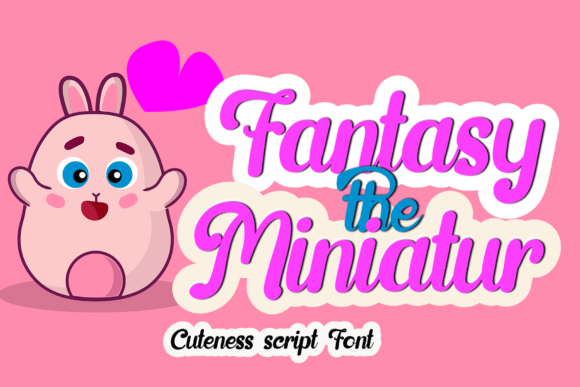
Fantasy the Miniatur: A Designer's Honest Review
When I first opened Fantasy the Miniatur, I was curious how a script typeface with that name would land in real layouts. The name suggests something delicate, miniature, almost whimsical. But the letters themselves carry more weight than you might expect. This is not a shrinking violet of a font. It has confidence, a deliberate hand-drawn quality that sits somewhere between vintage elegance and playful modernism. As a designer who spends most days evaluating typefaces for branding, packaging, and digital products, I look for fonts that bring personality without demanding constant attention. Fantasy the Miniatur does that, but only when you place it in the right context.
A Script That Refuses to Fade Into the Background
The first thing I notice with any script font is how the letters connect and whether the rhythm feels natural. Fantasy the Miniatur flows well. The strokes have variation—thin in some places, bold in others—which gives it a handcrafted feel. It is not a rigid, clinical script. It breathes. The lowercase runs smoothly, and the uppercase stands out without shouting. The overall mood is warm, slightly nostalgic, but still contemporary enough for modern brand identity work. I can see it appealing to crafters and small business owners who want a friendly, approachable look without slipping into the overly cutesy territory that many handwritten fonts occupy.
This is a display font first. I would not recommend it for long body copy or anything that requires sustained reading. But for headlines, short phrases, and signature-style accents, it performs beautifully. The visual personality sits in a sweet spot: it feels personal without feeling amateur, which is hard to achieve. Many scripts in the Script Amp category lean too far into decorative excess, but Fantasy the Miniatur holds back just enough to remain useful in commercial design assets.
Where Fantasy the Miniatur Earns Its Place in Your Tool Kit
I have tested this typeface across several real project scenarios, and I can speak to where it delivers and where it struggles. Let me walk through the applications that make sense.
- Logo design and brand identity. This is where Fantasy the Miniatur shines brightest. The letterforms have enough character to stand alone in a mark, especially for businesses in the creative, lifestyle, or handmade space. I tested it for a small bakery brand, and the script added warmth without looking forced. It also pairs well with a clean sans serif font for a secondary wordmark.
- Packaging design and product labels. For premium packaging—think candles, skincare, gourmet food, or stationery—this script brings a tactile, artisanal feel. At larger sizes on a label, the stroke variation becomes a visual asset. The font holds up in both full-color and monochrome packaging concepts.
- Social media graphics and digital ads. On Instagram posts or Pinterest pins, Fantasy the Miniatur grabs attention without overwhelming the image. I used it for a series of quote graphics, and the readability at that scale was solid. It works especially well when paired with a serif font for contrast.
- Printable design, Canva templates, and Cricut projects. This is a natural fit. For crafters and digital sellers who create printables, invitations, or vinyl cut files, the script offers enough detail to feel premium without being so intricate that it causes cutting issues. I tested a simple monogram in Cricut Design Space, and the letters cut cleanly.
- Merchandise and editorial design. On t-shirts, mugs, or tote bags, the font carries a handmade aesthetic that resonates with modern audiences. In editorial layouts, it works well as a drop cap or a decorative pull quote accent.
When You Should Be Cautious With This Typeface
No font works everywhere, and Fantasy the Miniatur has clear boundaries. I tested it at small sizes—around 10 to 14 points—and the readability drops off noticeably. The thinner strokes can get lost, especially in body text or on low-resolution screens. This is a display font through and through. Do not use it for paragraphs, lengthy descriptions, or any text where legibility is critical for extended reading.
I also recommend being careful with all-uppercase settings. The uppercase letters are ornate, and when stacked together in a short phrase, they can feel busy. For a brand mark, one or two words in uppercase can work, but more than that starts to strain the eye. Similarly, avoid setting Fantasy the Miniatur on busy backgrounds or low-contrast color combinations. The script needs space and clarity to breathe. A light background with dark text, or vice versa, gives the best results.
For professional branding work, I would not use this font as the sole typeface. It needs support. In my tests, pairing it with a neutral sans serif font like Open Sans or a refined serif font like Playfair Display created a strong visual hierarchy. The script handles the emotional job; the supporting typeface handles the structural job. That division of labor matters in brand identity and editorial design.
Readability, Hierarchy, and the Trust Factor
Readability in a display script is always a balancing act. Fantasy the Miniatur scores well for a script font because the letter shapes are distinct. I did not confuse n with m or a with o, which is a common problem in overly stylized handwritten typefaces. The ascenders and descenders are proportional, so the text sits neatly in a line. That alone makes it more trustworthy for client work where you cannot afford ambiguity in a brand name or tagline.
In terms of audience perception, this font creates a friendly, approachable mood. It does not scream luxury or high fashion, but it does communicate care and craftsmanship. For small businesses, bloggers, and content creators who want to build a personal connection, Fantasy the Miniatur can be a genuine asset. It builds recognition through its distinctive letterforms without being gimmicky. That is harder to find than you might think in the Script Amp category.
Practical Notes From a Working Designer
Before you commit this typeface to a client project or a commercial product, run through these checks. I always do this with any new font, and Fantasy the Miniatur is no exception.
- Test it in black and white first. Strip away all color and see if the letterforms hold their own. I printed a few test words in solid black on white paper, and the font still felt lively. The stroke contrast was visible even without color.
- Check small-size readability on screen. At 16 points and below, the thinner hairline strokes become hard to read. Do not rely on this font for fine print or secondary navigation in web design.
- Try it on real mockups. I dropped Fantasy the Miniatur into a product label mockup, a social media template, and a simple logo concept. Each test revealed something about spacing and scale. The font looks best when it has room to breathe—do not crowd it.
- Compare uppercase and lowercase. The lowercase is more readable and more versatile. The uppercase is best reserved for single-word marks or initials. A full name in all caps can feel overwhelming.
- Review the spacing. Out of the box, the kerning is decent but not perfect. I adjusted tracking slightly for certain letter pairs, especially in larger display settings. A little manual tuning goes a long way.
- Test font pairings. I paired Fantasy the Miniatur with a clean sans serif font for a brand identity, and the contrast was effective. I also tried it with a classic serif font for a more editorial feel. Both worked, but the script needs a neutral partner—do not pair it with another busy display typeface.
- Confirm commercial licensing. Before you use this font in client work, packaging, or any product for sale, verify the license. Script Amp fonts vary in their terms. Do not assume personal use covers commercial projects. A clear license protects you and your client.
Font Pairing Directions That Actually Work
If you are building a brand identity or a set of design assets around Fantasy the Miniatur, consider these pairing directions based on my tests. A simple sans serif like Montserrat or Lato keeps the focus on the script while providing a clean counterpoint. For a more vintage or editorial feel, try a serif font like Cormorant Garamond or Libre Baskerville. The contrast between the script's hand-drawn quality and the serif's structure creates a sophisticated visual hierarchy. Avoid pairing it with another script or handwritten font—you will lose the distinction and create visual noise.
For web design, use Fantasy the Miniatur sparingly in headers or hero text, and rely on a standard sans serif for body copy. The font loads well as a web font if you use the proper formats, but keep the usage limited to short, high-impact moments. That is where it earns its keep.
Final Thoughts on Using Fantasy the Miniatur in Real Projects
Fantasy the Miniatur is a solid addition to any designer's collection of premium display fonts, especially if you work regularly with branding, packaging, or printable products. It brings a human, handcrafted feel that many modern brands are searching for, without tipping into cliché. It is not a workhorse font for long text, but it does not pretend to be. Used deliberately—on a logo, a product label, a social graphic, or a craft template—it adds warmth and character that a standard serif or sans serif font cannot replicate.
I would recommend it to small business owners, crafters, and content creators who want a script that feels intentional. For designers working on brand identity projects, it can be a reliable choice when the brand needs a personal touch. Just respect its limits: keep it large, keep it clean, and give it the right typographic partner. Do that, and Fantasy the Miniatur will serve your projects well.